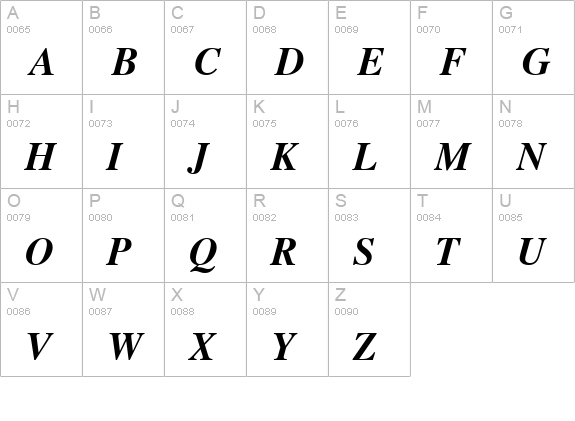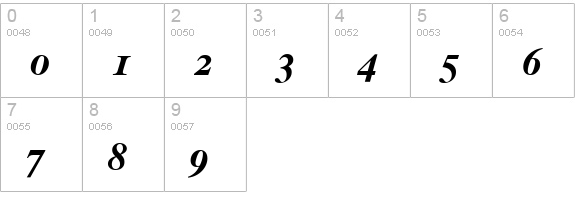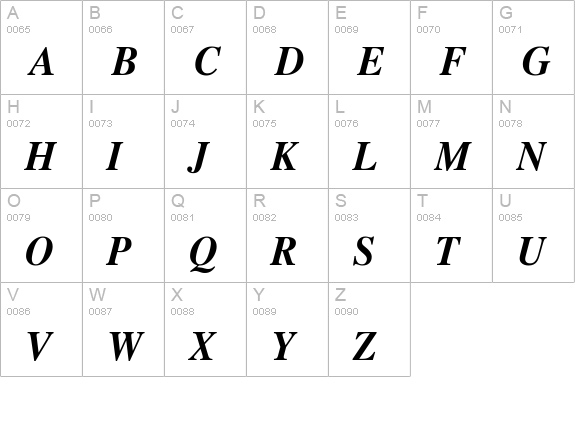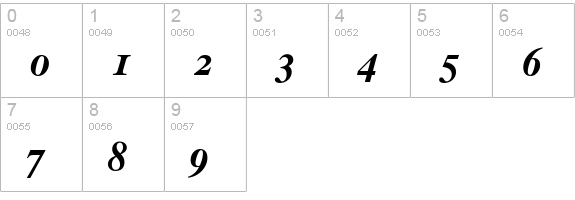
Greco OldStyle SSi Bold is a strong, high-contrast variant in the Greco typeface family \xE2\x80\x94 well suited to headlines, attention-grabbing titles, and strong calls-to-action.
Greco OldStyle SSi Bold font is a classic and elegant typeface that exudes timeless sophistication. With its strong and bold appearance, this font is perfect for making a statement in headlines, titles, and other prominent design elements. The Greco OldStyle SSi Bold font features a unique blend of traditional serif elements with a modern twist, making it versatile and suitable for a wide range of design projects. What makes this font even more appealing is that it is available for free download at FontsMarket.com. This means that you can easily access and use this stylish typeface in your projects without any cost. Whether you're working on branding materials, editorial designs, or any other creative project, the Greco OldStyle SSi Bold font is sure to elevate your work with its bold and sophisticated aesthetic. Download it today and add a touch of timeless elegance to your designs.